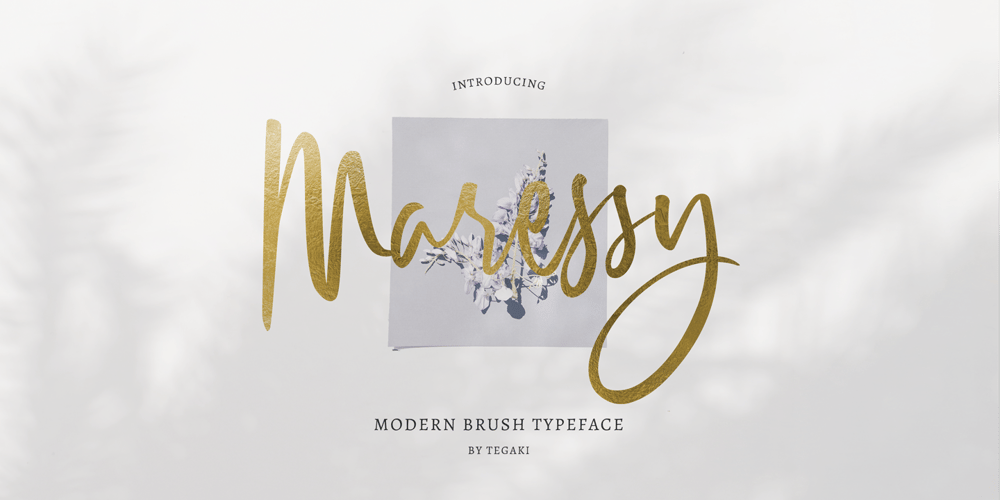
Maressy
Maressy font
Maressy Font Family was designed by Rudi Suhairi and published by Tegaki. Maressy contains 1 styles and family package options. Hi all,Maressy created with stylish and modern brush characters. Maressy is a modern brush script font that comes with Extended Latin Characters. This font was PUA encoded. Maressy works perfectly for logos, display, product branding, wedding invitation card, stationary, packaging, clothing, flyer, apparel, magazines, brochures, lable, posters, badges, etc.Maressy comes with 241 glyphs and 26 alternate characters contain with opentype features. Maressy also comes with 10 standard ligatures that allowing you to make stuff looks more exclusive and pro standard.You can access all those alternate characters by using OpenType savvy programs such as Adobe Illustrator, Adobe InDesign and CorelDraw X6-X7, Microsoft Word 2010 or later versions.There are additional ways to access alternates/swashes, using Character Map (Windows), Nexus Font (Windows), Font Book (Mac) or a software program such as PopChar (for Windows and Mac). For other programs that doesn’t support OpenType features or Glyphs Panel such as Photoshop, you can use Character Map in Windows to access the alternate characters.If you need help or advice, please contact me by e-mail “tegakiscript@gmail.com”Thank you for your purchase!